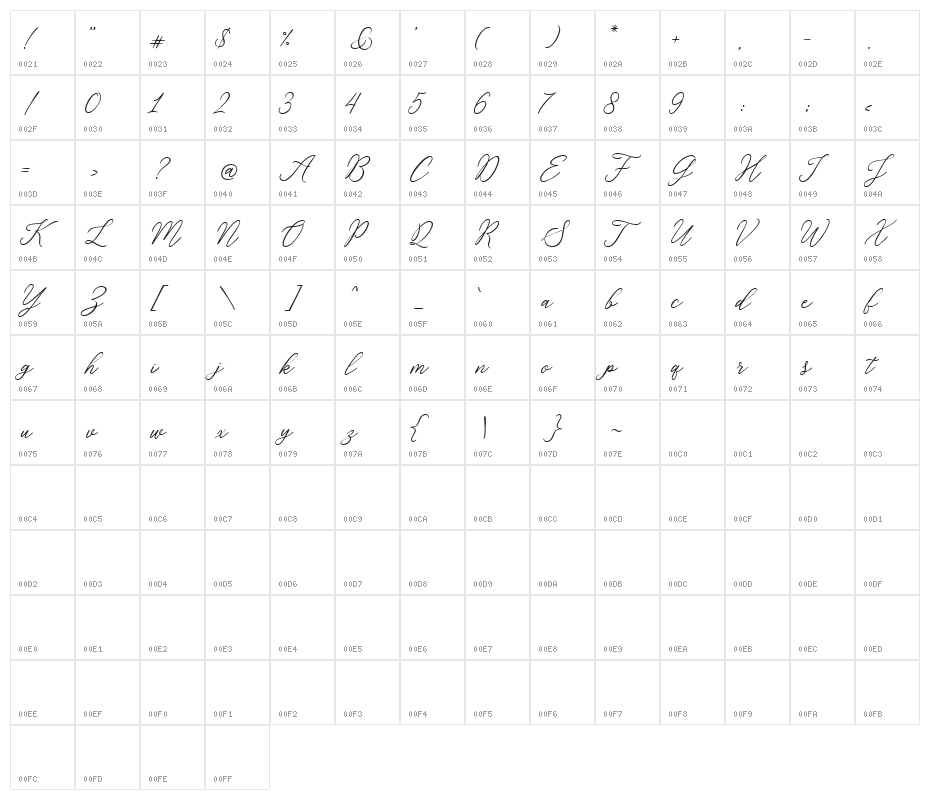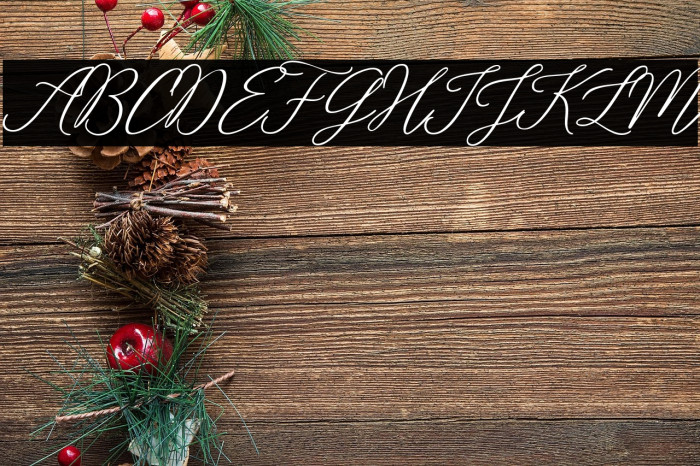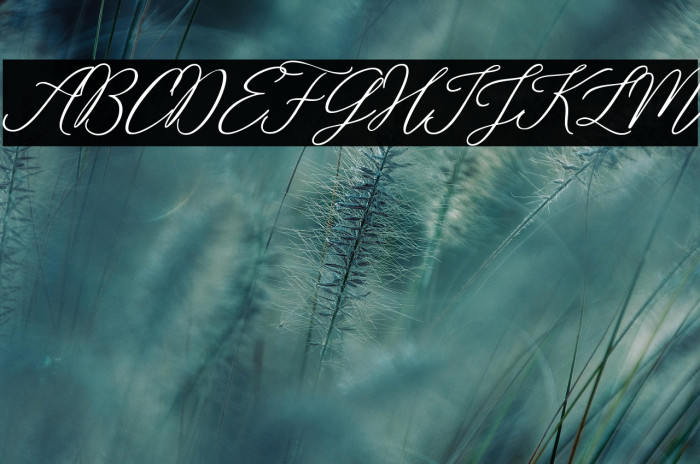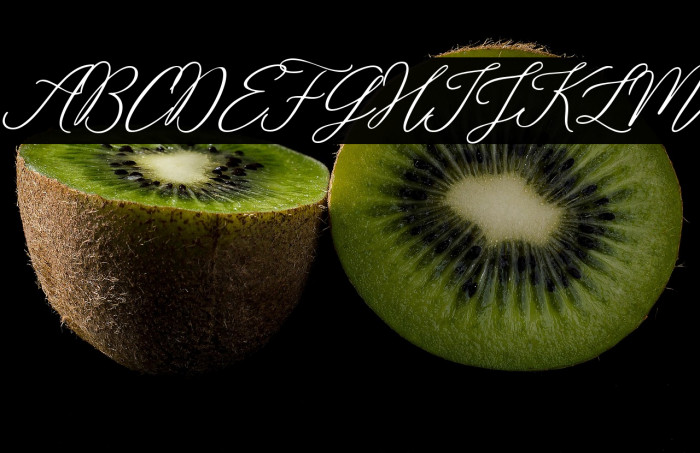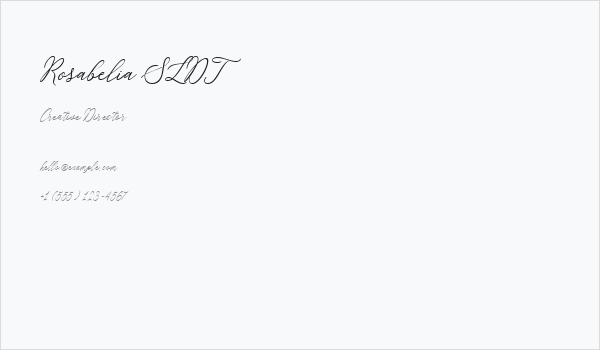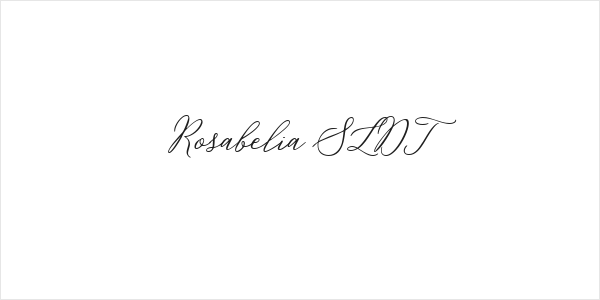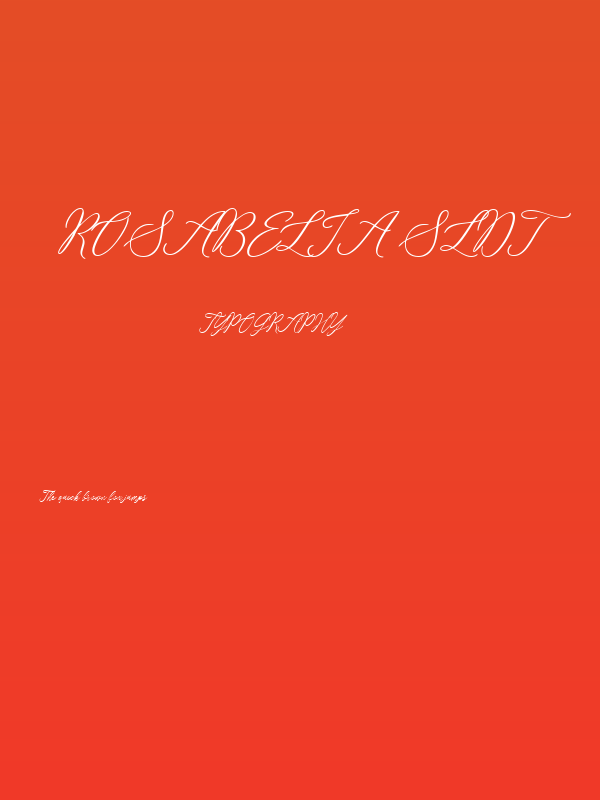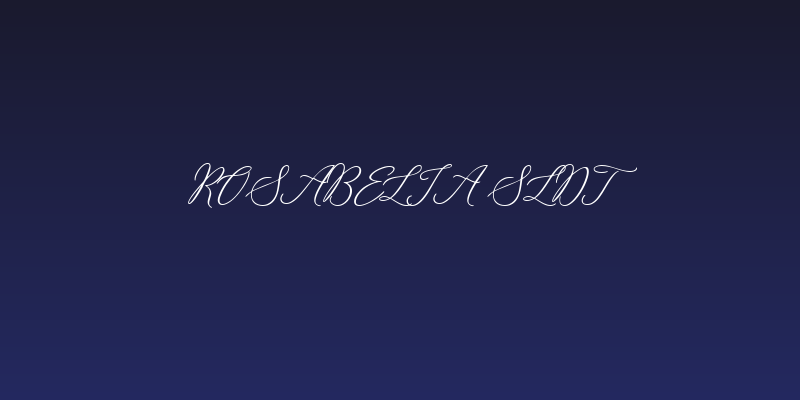
Rosabelia SLDT Font
Rosabelia SLDT Description
This elegant script font features flowing, cursive letters with a refined and sophisticated appearance. The characters are interconnected with smooth, sweeping lines that create a sense of movement and grace. The uppercase letters are particularly ornate, with elaborate loops and flourishes that add a touch of luxury. The lowercase letters maintain a consistent style, complementing the uppercase with their own subtle curves. The numerals and special characters are designed to match the overall aesthetic, ensuring a cohesive look across all text. This font is perfect for projects that require a touch of elegance and sophistication.
| Proposed Projects | Ideal for wedding invitations, luxury branding, elegant stationery, and high-end product packaging. |